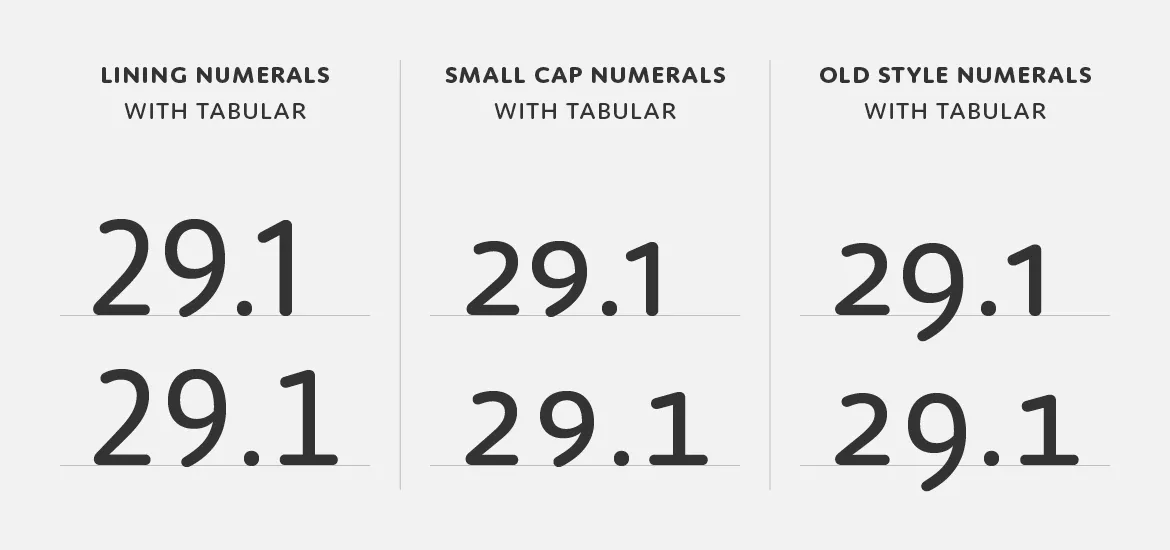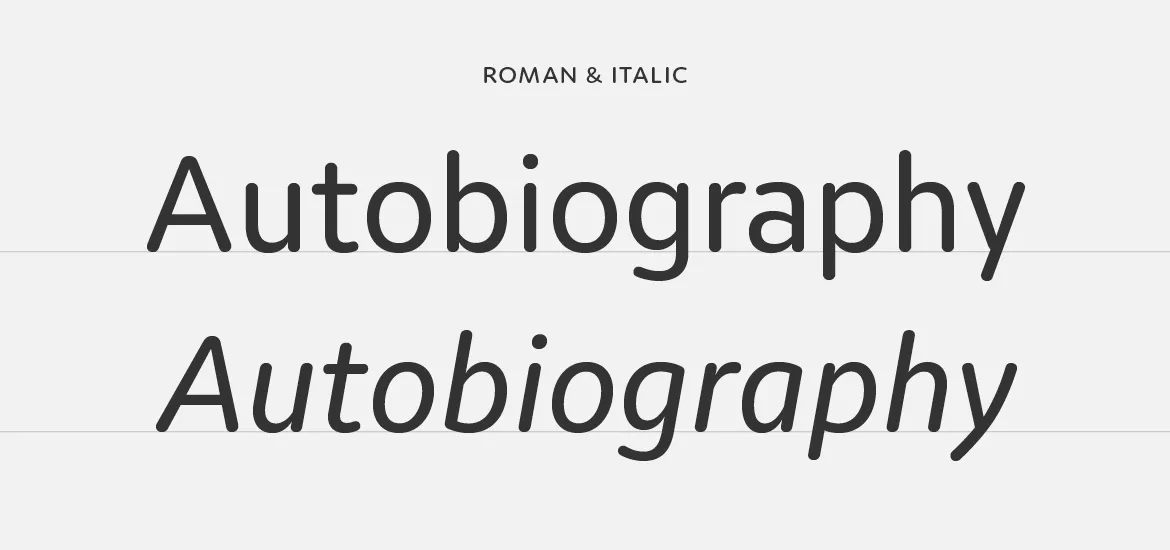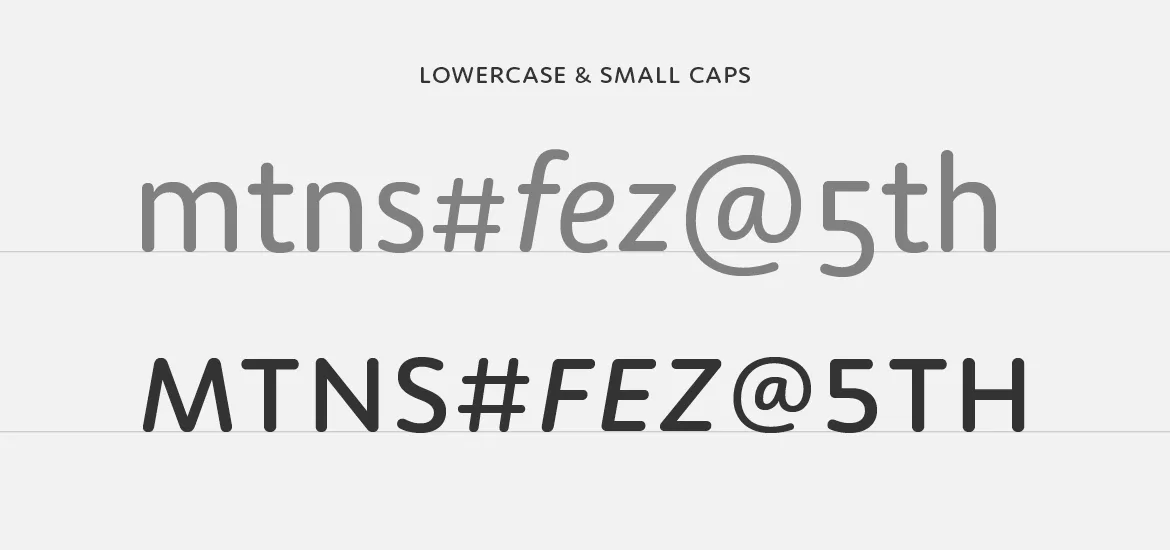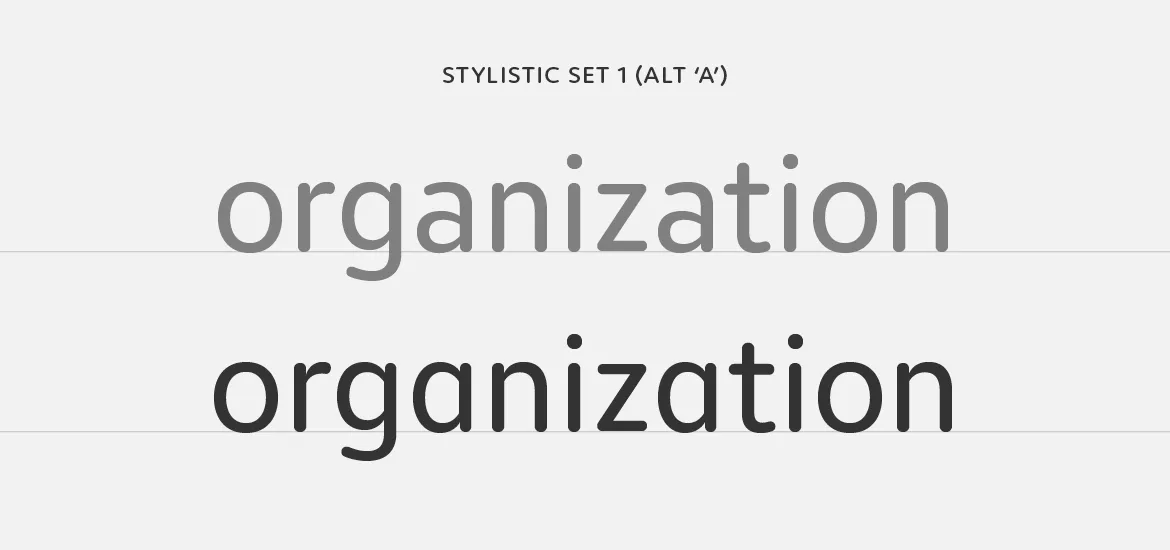
Designing Moniker
Taking inspiration from the rounded sans serifs of the last 50 years, Moniker captures the informal tone of the genre while building on the typographic possibilities left under-explored. Its open terminations, slightly condensed lowercase and almost classically proportioned uppercase bring a sensible workhorse mentality to an often display-centric genre. Continuous running text, charts, graphs and tables can join headlines and decks in communicating a friendly and approachable message. The full family consists of five weights, with lively matching italics and small caps, making it suitable for a variety of design tasks from wayfinding to identity work.
The display of numerical data is an increasingly crucial element of daily communication and Moniker features a full set of number styles to address this need. Lining numerals (default) as well as old style, small cap, tabular, tabular old style and small cap tabular numerals for each weight – italics included – are standard in the full version of the Complete Family.
Moniker features an italic that mimics the left to right movement of italic handwriting. In contrast to an oblique roman, the strokes are slightly thinner, the joins more dramatic and the rhythm more pronounced, making it easier to distinguish when set with the roman.
And small caps too! Just like our other fully-featured OpenType families, Moniker has a complete set of small caps, matching small cap numerals and punctuation at small cap height.
In a nod to the informality of the rounded genre we’ve included a single OpenType stylistic alternate ‘a’. It’s a small detail, but it’s one that adds a casual tone to headlines and text.